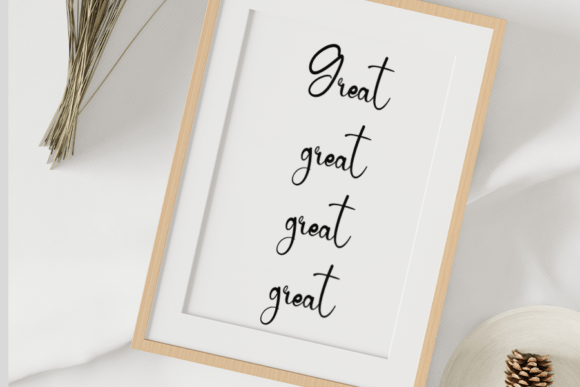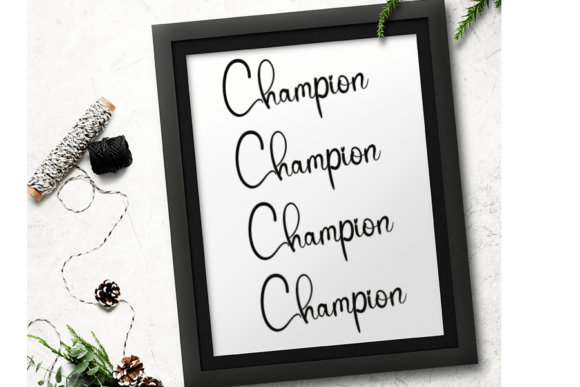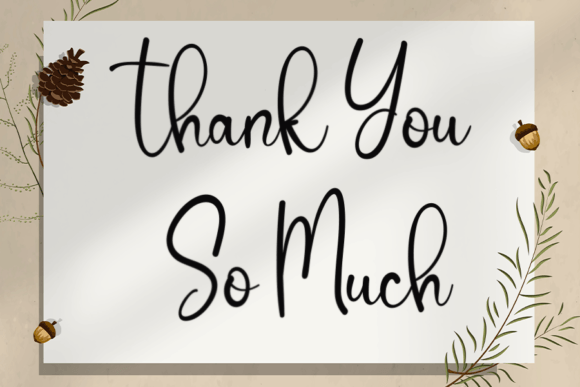
Champion Font
The Champion Font Download is a fun and friendly handwritten typeface designed to bring personality and charm to your projects. With smooth handwritten curves and a playful rhythm, this font works beautifully for both personal and professional use. Whether you’re creating invitations, posters, or social media graphics, Champion adds a lively handwritten spark.
A Handwritten Script with Playful Energy
The Champion script font merges casual handwritten strokes with modern design clarity. As a result, it feels versatile, approachable, and creative. Furthermore, it transitions effortlessly between small stationery projects and bold display layouts, which makes it a dependable tool for designers.
Handwritten fonts add intimacy and warmth to any occasion. The Champion Font is perfect for wedding invitations, birthday cards, thank you notes, and seasonal greetings. Because of its joyful handwritten form, every card feels unique and polished. In addition, it ensures that your stationery projects make a lasting impression.
Branding and Logo Design with Champion Font
Typography is a core part of any brand identity. The Champion handwritten font is excellent for boutique logos, product packaging, and promotional content. Its casual yet stylish handwritten look creates an approachable but professional brand image. Therefore, it works especially well for lifestyle, crafts, and creative industries.
Posters, Titles, and Editorial Design
The Champion Font Download also shines in posters, magazines, banners, and book covers. It maintains clarity across all sizes while adding playful handwritten beauty. Consequently, it is a reliable option for designers who want expressive and legible typography.
In today’s digital age, fonts must stand out across different platforms. The Champion typeface integrates smoothly into Instagram posts, Pinterest boards, YouTube thumbnails, and blogs. Because of its fun handwritten energy, it ensures digital projects look modern, engaging, and creative.
Why Designers Choose Champion Typeface
Designers value fonts that combine creativity with usability. The Champion handwritten script keeps its fun and approachable personality while remaining clear and versatile. This makes it useful for both professionals and hobbyists. Moreover, its timeless handwritten charm ensures it will remain trendy for years.